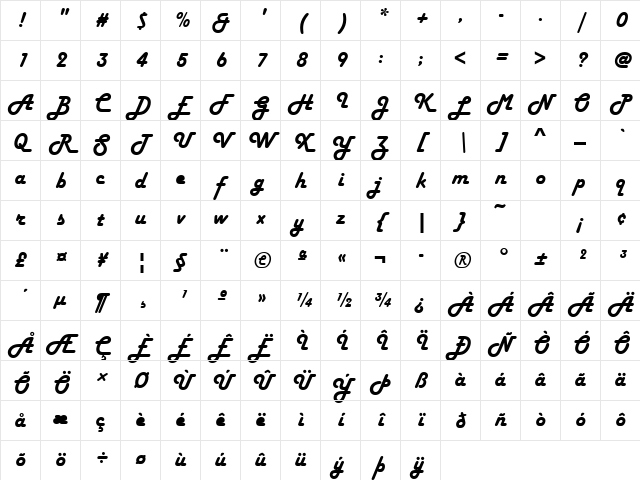
Harlow Solid Italic Italic
Design Context for Harlow Solid Italic
Harlow Solid Italic is a composed and adaptable typeface that performs quietly and consistently across a wide range of design contexts. The slanted form adds forward momentum and visual energy.
Pro Tip: Use Harlow Solid Italic for emphasis, pull quotes, and subheadings where its slanted energy can add rhythm to the layout.